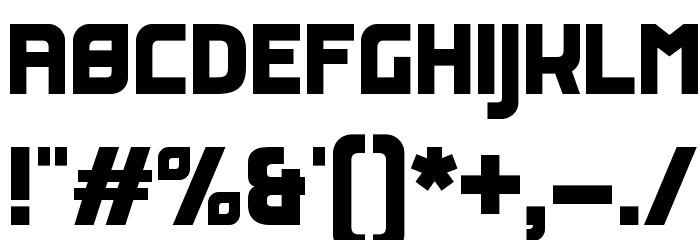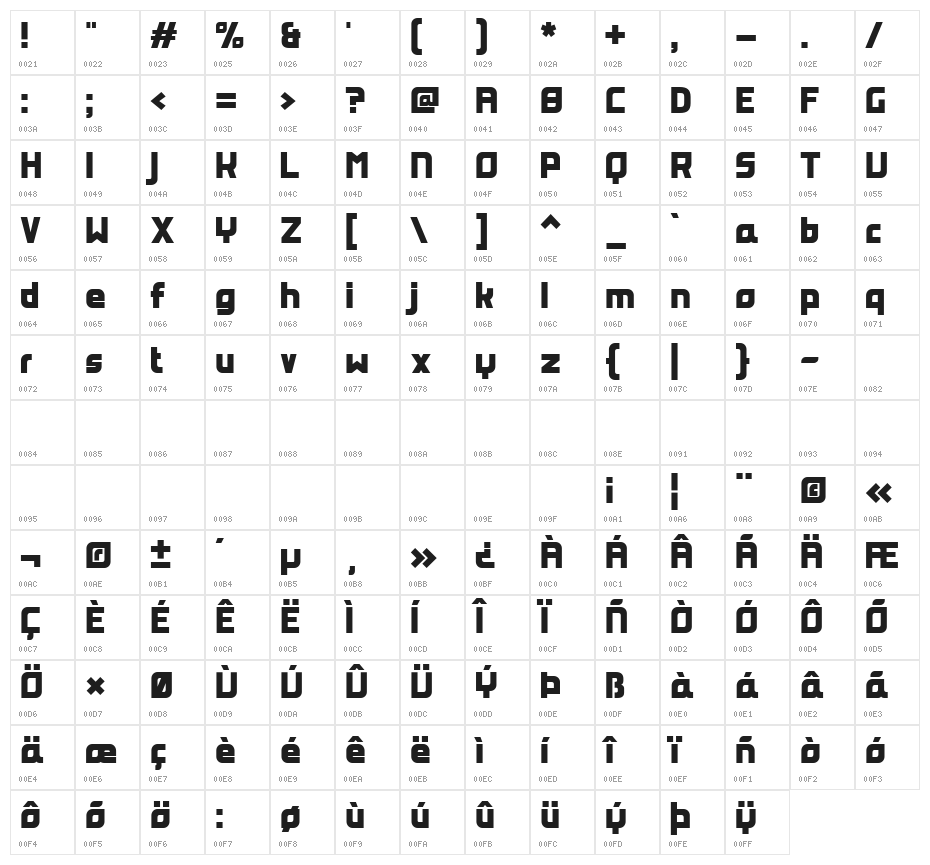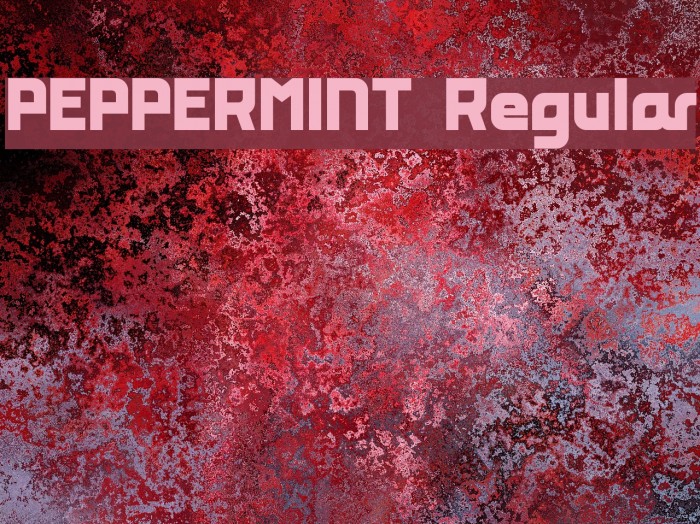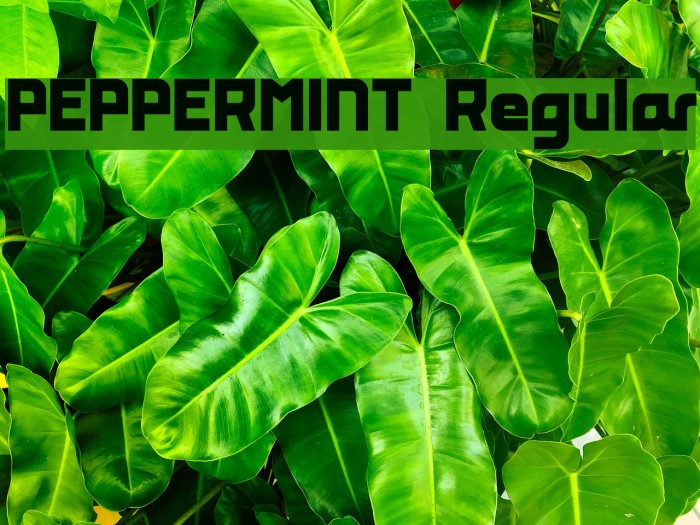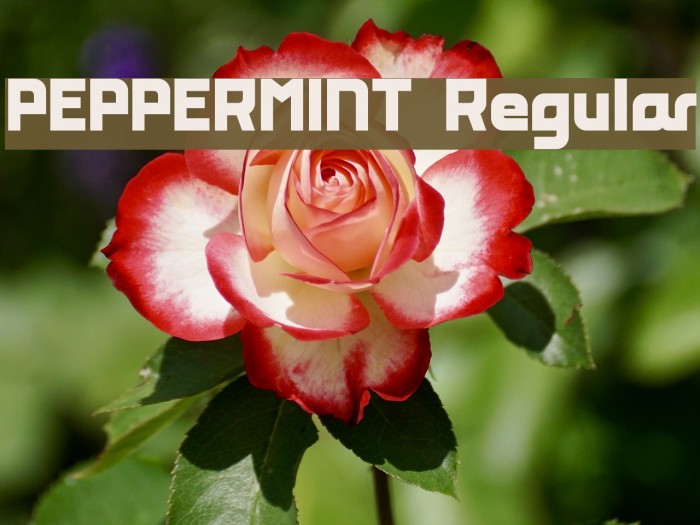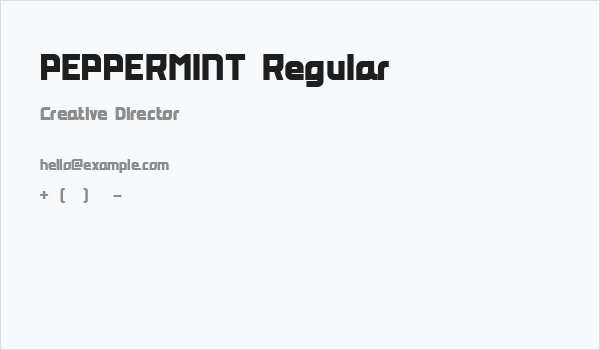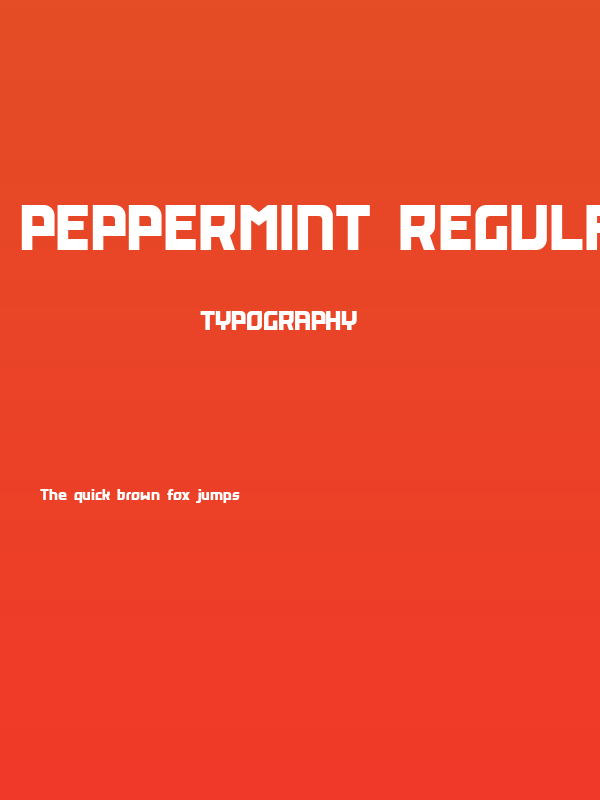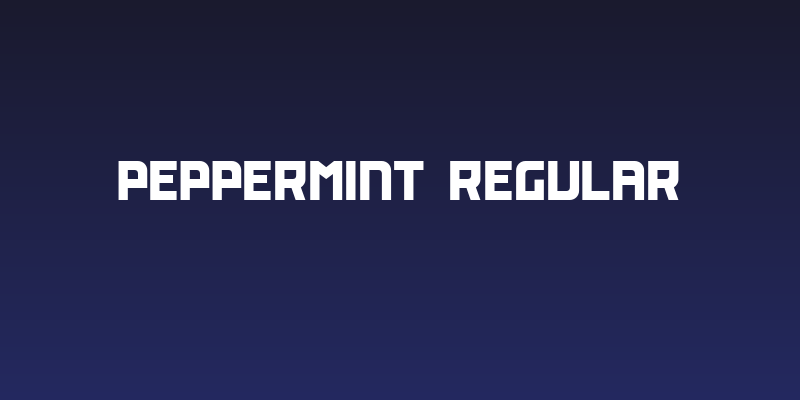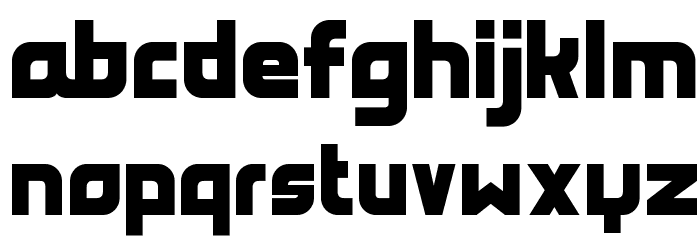
PEPPERMINT Regular Font
PEPPERMINT Regular Description
This font features a bold, geometric style with a strong presence. The characters are constructed with thick, uniform strokes, creating a sense of solidity and impact. The uppercase and lowercase letters share a consistent design, with rounded edges and a block-like appearance. The numerals and special characters maintain the same boldness and geometric structure, ensuring uniformity across all glyphs. This font's style is reminiscent of retro or vintage designs, yet it maintains a modern appeal due to its clean lines and simplicity. The overall look is both playful and assertive, making it suitable for a variety of creative applications.
| Overall Style | Modern, Vintage |
| Proposed Projects | Ideal for posters, logos, branding, and headlines where a strong visual impact is desired. |